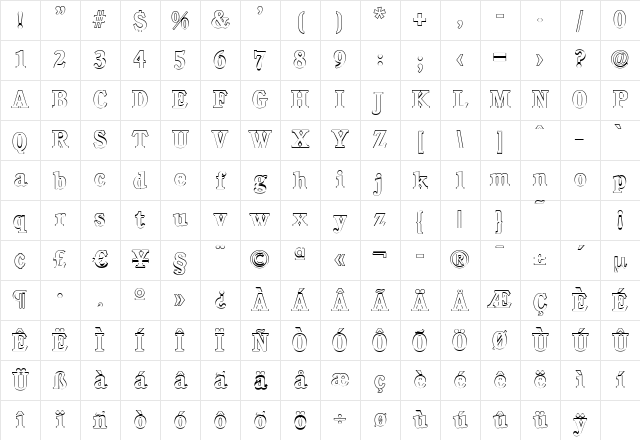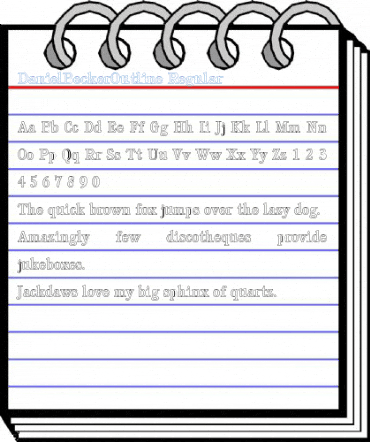
DanielBeckerOutline Bold
Style: Bold
Complete DanielBeckerOutline Bold glyph index. Displaying only characters natively supported by DanielBeckerOutline Bold font.
Design Context for DanielBeckerOutline
DanielBeckerOutline is built around its visual character rather than neutral utility - its distinctive forms are designed to make an impression at display sizes. Its bold stroke weight gives it real presence on the page.
Suited to editorial headers, event branding, and any context where the font itself is part of the message.
Font Pairing: Pair with a clean neutral sans-serif for body copy to let DanielBeckerOutline's character lead without overwhelming the composition.
Pro Tip: Use DanielBeckerOutline exclusively at display sizes - it was designed to be seen, not read at length. Let a neutral companion handle body copy.